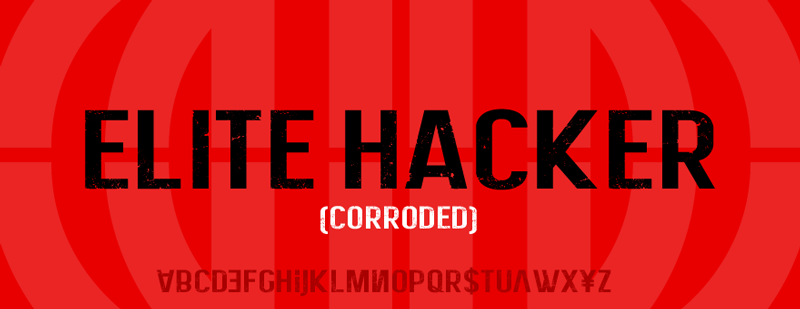
Preview and download Elite Hacker Corroded Font. Created by MuraKnockout Media + Design in Fancy Eroded styles with Free for personal use license.
This font is a little bit of grunge with a fistful of attitude. This font includes capitals and a set of alternates instead of a lowercase set. This font also includes accents. This font is perfect for titles, logo type, flyers, club flyers, and anything that needs a little more edge. http://michaelmuranaka.com/elite-hacker-corroded/ ----------------------- Check out my last font, a title font called Daiichi: http://www.dafont.com/daiichi.font ----------------------- For commercial use, please see the font licensing agreement: http://michaelmuranaka.com/font-licensing-agreement/ ----------------------- Check out my new Font Blog to stay up to see when I release new fonts! http://michaelmuranaka.com/category/fonts/ ----------------------- This is free for personal use. Please do not sell, redistribute, or claim ownership of this font. Please DO NOT download this font and redistribute it on another website!!! If you make use of this font, it might be cool if you either credit MuraKnockout Media or Michael Muranaka, or show me how you used it! Enjoy! |